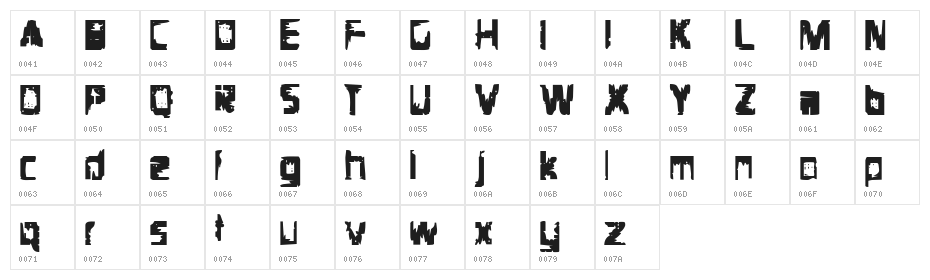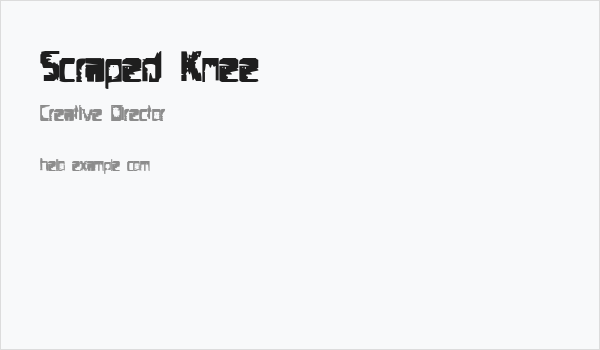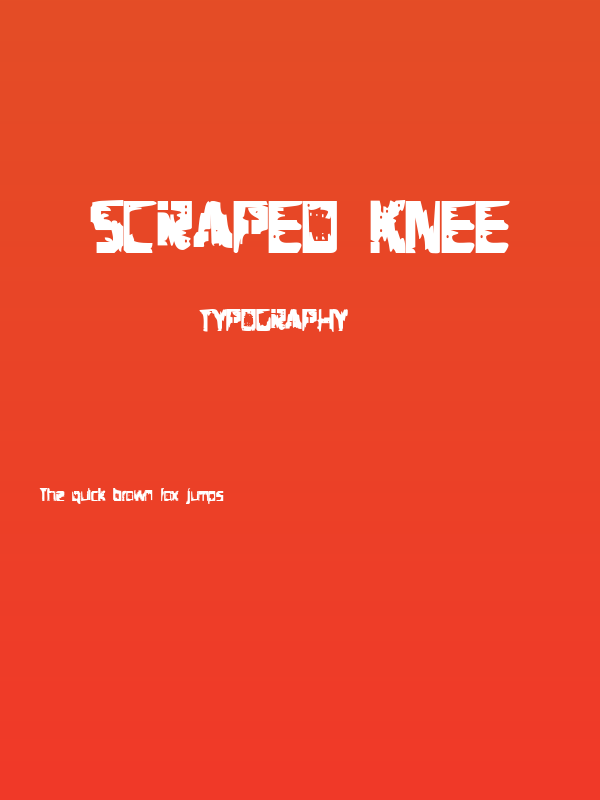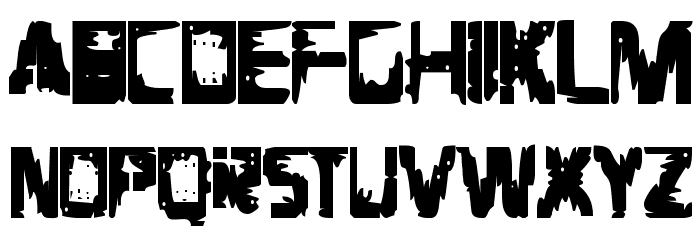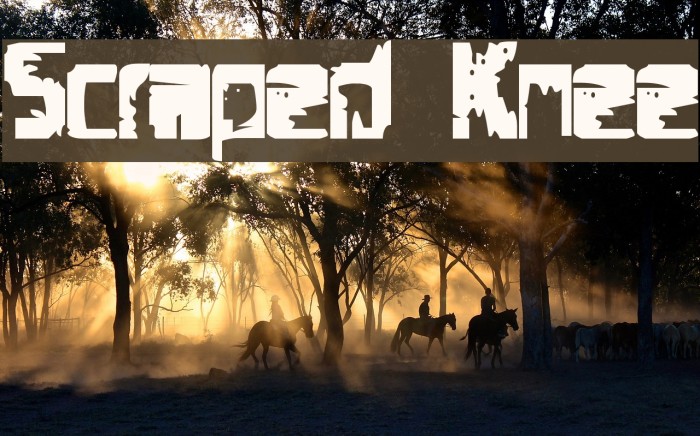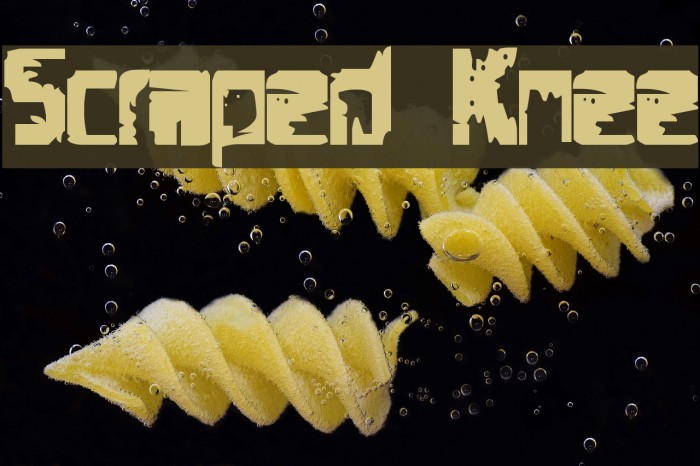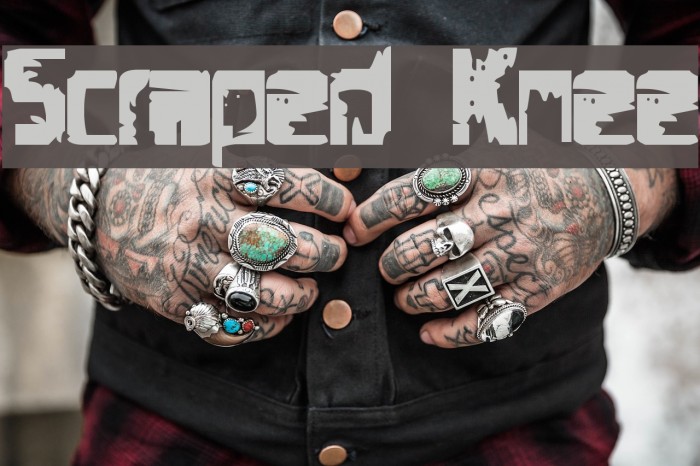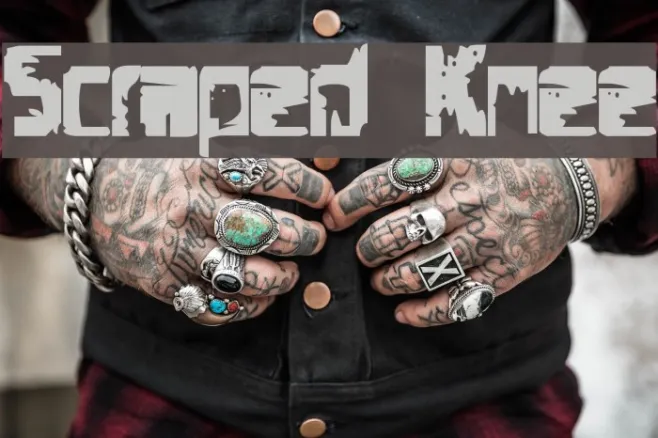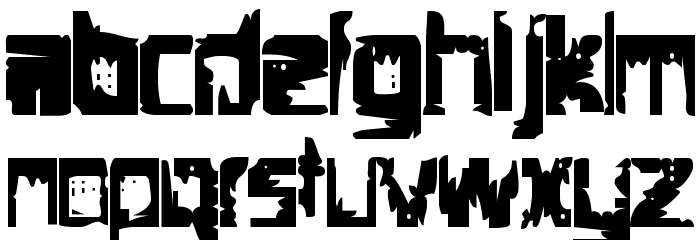
Scraped Knee Font
Scraped Knee Description
This font features a rugged, distressed appearance with irregular edges and a grungy texture, reminiscent of worn or damaged surfaces. The characters are bold and blocky, with a heavy emphasis on creating a chaotic and edgy aesthetic. The uppercase and lowercase letters maintain a consistent style, with jagged edges and uneven lines that contribute to its raw and gritty look. The font's unique design makes it stand out, ideal for projects that require a bold statement or an urban, rebellious vibe. Its distinctive style is perfect for capturing attention and conveying a sense of ruggedness and individuality.
SCRAPED-KNEE UPPERCASE
SCRAPED-KNEE LOWERCASE
SCRAPED-KNEE OTHER CHARS
| Overall Style | Grunge, Urban, Edgy |
| Proposed Projects | Ideal for album covers, streetwear branding, skateboarding graphics, or any project needing an edgy, urban feel. |